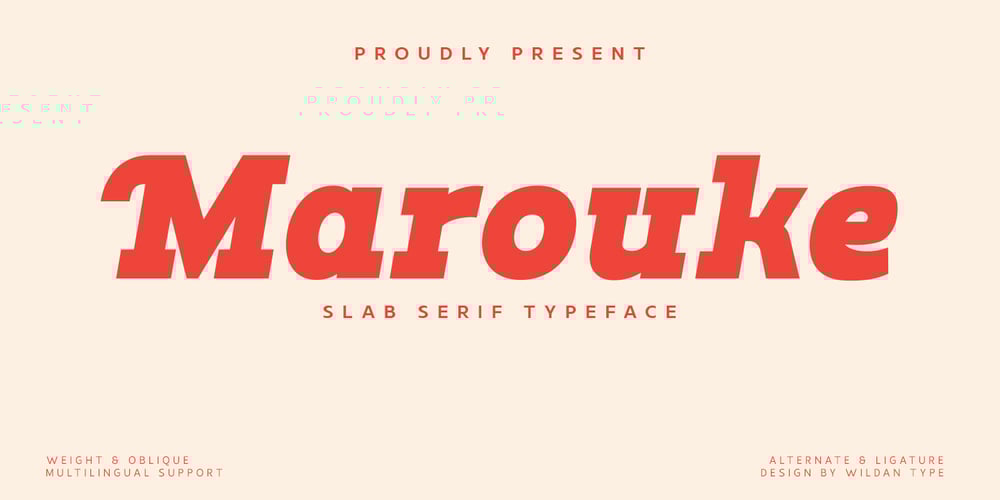
Marouke
Marouke font
Marouke Font Family was designed by Wildan Suprian Syah and published by Wildan Type. Marouke contains 2 styles and family package options. Marouke font the modern slab serif which inspired from sporty design and vintage style. This is variable font, different styles and weight that you can apply in your design project. This font made with the visuality of strength. Make a great combination of your design.Include:Marouke obliqueMarouke RegularMultilingualAlternate & Ligature